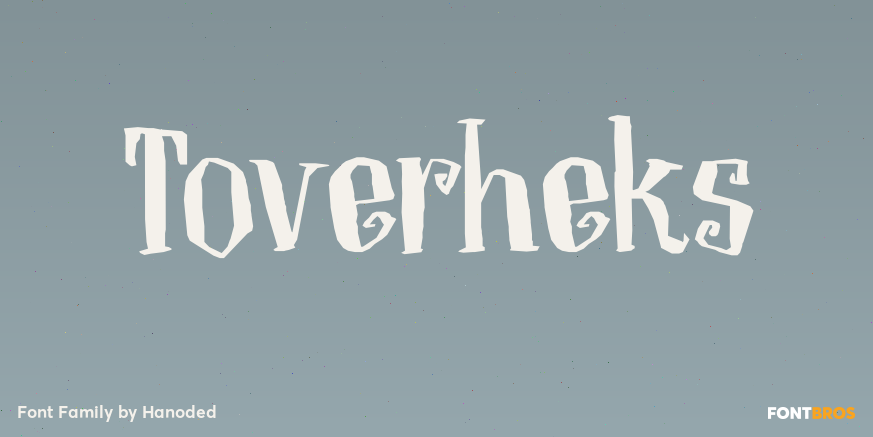
About Toverheks
A Toverheks in Dutch means \’witch\’ – well, actually it means \’magic witch\’ (it doesn\’t translate well). The reason for this kind of weird name is the nature of the font: it reminded me of a book of spells – the kind witches use. Toverheks is a didone-ish…